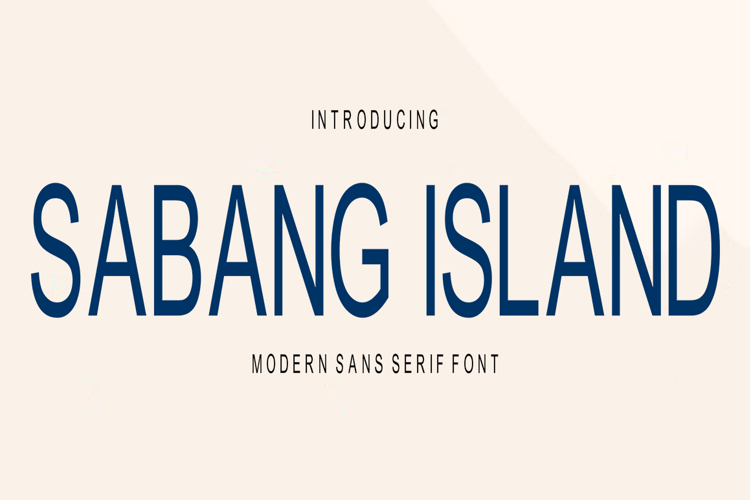
Sabang Island attracts such a subtle, clean, feminine, sensual, glamorous, simple, and very readable typeface. The classic style is perfect to apply in various formal forms such as invitations, labels, menus, Logos, fashion, makeup, stationery, letterpress, romantic novels, magazines, books, greeting/wedding cards, packaging, labels.
Sabang Island also features a strong neoclassical sans serif typeface with high contrast, a cool, stylish, and unique look with alternative fonts, Ligatures, and multilingual support